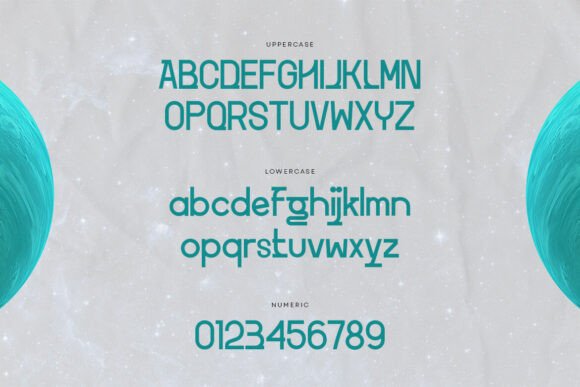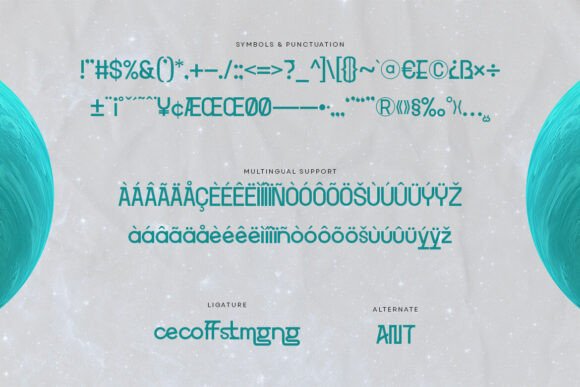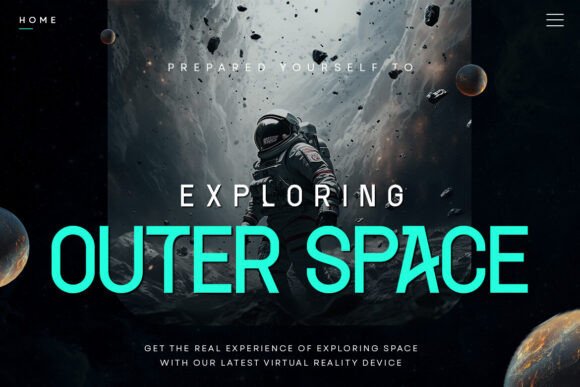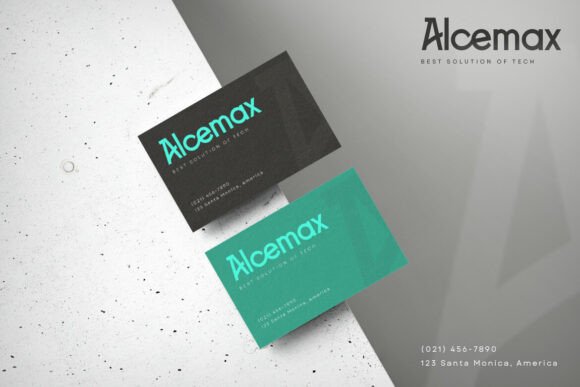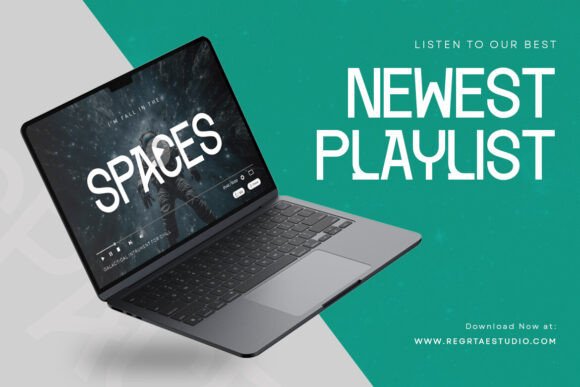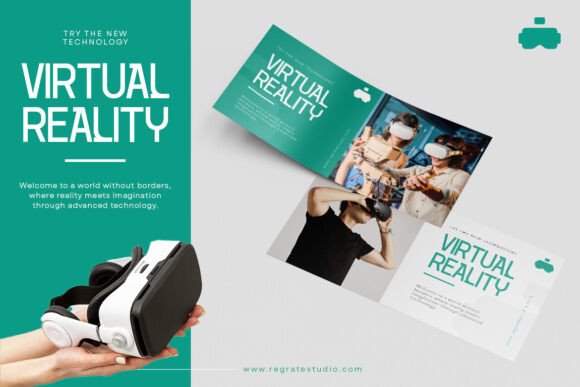
The Perfect Blend of Function and Style: Unveiling Anodrece Font
Have you ever been stuck on a design project, scrolling through font options for hours, only to end up with a generic sans serif that lacks personality? We’ve all been there. But what if you could discover a typeface that not only meets your needs but exceeds your expectations? Enter Anodrece Font, a modern sans serif designed to bring a fresh touch to your creative projects.
Anodrece Font is more than just a font – it’s a tool for designers, brands, and businesses looking to make a statement. With its sleek, minimalist design and contemporary aesthetic, this versatile typeface is perfect for branding, digital interfaces, and print media. Whether you’re working on a bold headline or body text, Anodrece Font delivers exceptional readability and a stylish edge that’s hard to find elsewhere.
- Unique Characteristic: Unique blend of modern and elegant design elements, making it suitable for a wide range of applications
Anodrece Font Review
I recently had the chance to work with the Anodrece Font, and I must say it’s a mixed bag. On the positive side, ✨ it’s incredibly versatile and can be used for a wide range of projects, from body text to display typography. The font’s unique blend of modern and vintage elements makes it a great choice for those looking for a distinctive look.
✨ The font’s weight range is also impressive, with 8 weights to choose from, including bold and italic options. This gives designers a lot of flexibility when it comes to creating visually appealing typography.
⚠️ One of the major drawbacks of the Anodrece Font is its limited language support. It’s primarily designed for Latin-based languages, which may be a problem for designers working on projects that require support for other languages.
⚠️ Additionally, the font’s spacing and kerning can be a bit off at times, which may require manual adjustments to achieve the desired look.
Overall, I’d say the Anodrece Font is a solid choice for designers looking for a unique and versatile font. While it has its limitations, the benefits far outweigh the drawbacks. With a bit of tweaking and adjustment, this font can be a real game-changer for your next design project.
- 8 weights to choose from, including bold and italic options
- Unique blend of modern and vintage elements
- Wide range of project applications
Tips: Use Anodrece Font for creative and artistic projects, such as infographics, posters, and social media graphics.
Tips: Use Anodrece Font for creating custom typography and illustrations, such as logos, branding materials, and editorial designs.
Tips: Use Anodrece Font for creating presentations, reports, and documents that require a touch of elegance and sophistication.
Anodrece Font is suitable for various design projects, including:
- Infographics and data visualizations
- Editorial designs and magazines
- Social media graphics and advertising